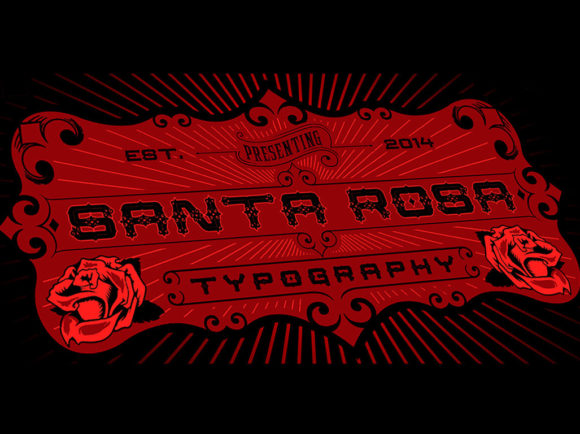
Santa Rosa Font: A Western-Inspired Display Font for Unique Creations
The world of typography is vast and diverse, with countless fonts to choose from, each with its own unique character and style. For designers and creatives looking to add a touch of the wild west to their projects, the Santa Rosa font is an excellent choice. This cool, detailed, and western-looking display font is imposing and features uniquely shaped letters that will easily match a wide range of creations that require a distinct touch.
What is Santa Rosa Font?
Santa Rosa font is a display font designed to evoke the spirit of the American west. With its rugged and detailed design, this font is perfect for creating eye-catching headlines, titles, and other graphical elements that require a bold and distinctive look. The font’s unique shape and western-inspired style make it an excellent choice for designers looking to add a touch of authenticity to their work.
Key Features of Santa Rosa Font
- Western-inspired design: The Santa Rosa font features a unique western-inspired design that is perfect for creating cowboy-themed or wild west-style projects.
- Detailed and rugged: The font’s detailed and rugged design makes it perfect for creating eye-catching headlines and titles.
- Uniquely shaped letters: Each letter in the Santa Rosa font has a unique shape, making it perfect for creating distinctive and memorable text.
- Imposing and bold: The font’s imposing and bold design makes it perfect for creating titles and headlines that demand attention.
Uses of Santa Rosa Font
The Santa Rosa font is a versatile font that can be used in a wide range of projects, including:
Use Cases for Santa Rosa Font
- Poster and flyer design: The Santa Rosa font is perfect for creating eye-catching posters and flyers for events, concerts, and other promotions.
- Logo design: The font’s unique western-inspired design makes it an excellent choice for creating logos for businesses, organizations, and brands.
- Title and headline design: The font’s bold and imposing design makes it perfect for creating titles and headlines for articles, blog posts, and other written content.
- Packaging design: The Santa Rosa font can be used to create distinctive and memorable packaging for products, including labels, tags, and other branding elements.
Benefits of Using Santa Rosa Font
There are several benefits to using the Santa Rosa font in your design projects, including:
Benefits of Using Santa Rosa Font
- Unique and distinctive: The Santa Rosa font is a unique and distinctive font that will help your designs stand out from the crowd.
- Western-inspired design: The font’s western-inspired design makes it perfect for creating cowboy-themed or wild west-style projects.
- Highly legible: Despite its bold and detailed design, the Santa Rosa font is highly legible, making it perfect for use in a wide range of projects.
Tips for Using Santa Rosa Font
Here are some tips for using the Santa Rosa font in your design projects:
Tips for Using Santa Rosa Font
- Use it sparingly: The Santa Rosa font is a bold and imposing font, so it’s best to use it sparingly to avoid overwhelming your design.
- Pair it with other fonts: The font pairs well with other fonts, including sans-serif and serif fonts, making it easy to create a cohesive look.
- Experiment with different colors: The Santa Rosa font looks great in a wide range of colors, so don’t be afraid to experiment and find the perfect color for your design.
- Pay attention to sizing: Make sure to adjust the font size to fit your design, as the font can be quite bold and may overpower smaller designs.
The Santa Rosa font is a unique and distinctive font that is perfect for designers looking to add a touch of the wild west to their projects. With its western-inspired design, detailed and rugged look, and highly legible letters, this font is sure to make your designs stand out from the crowd. Whether you’re creating posters, logos, titles, or packaging, the Santa Rosa font is an excellent choice. So why not give it a try and see how it can add a touch of authenticity to your designs?